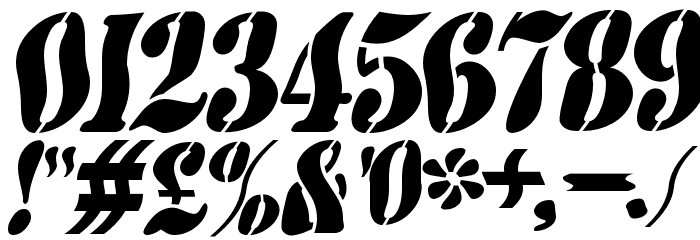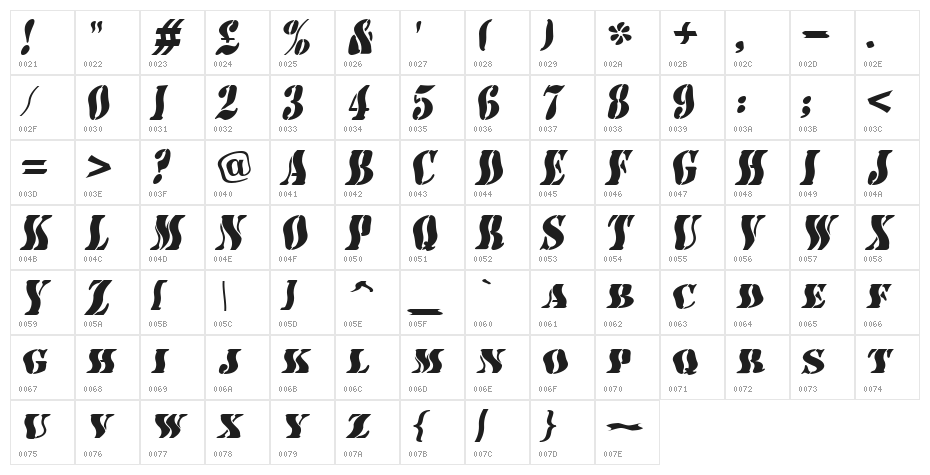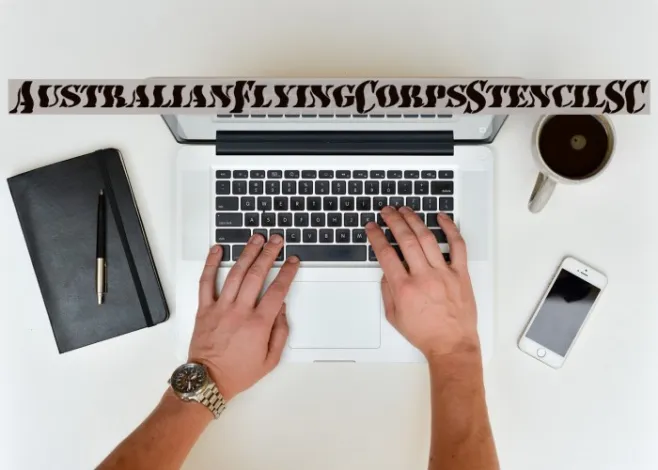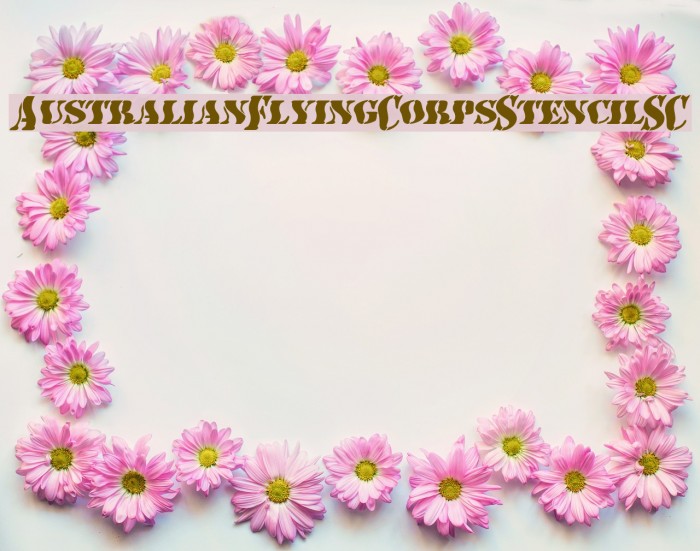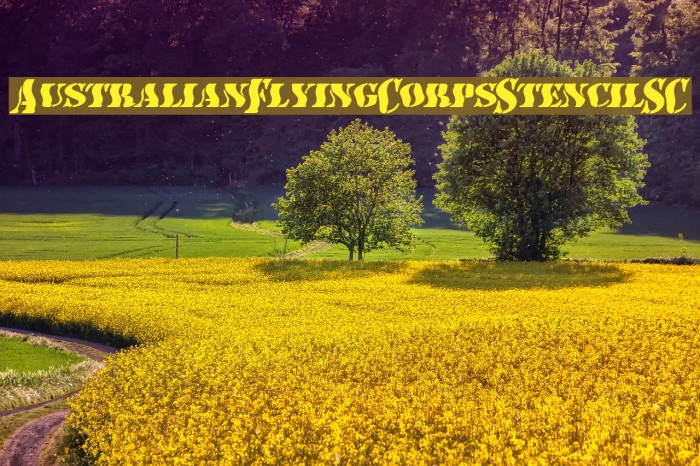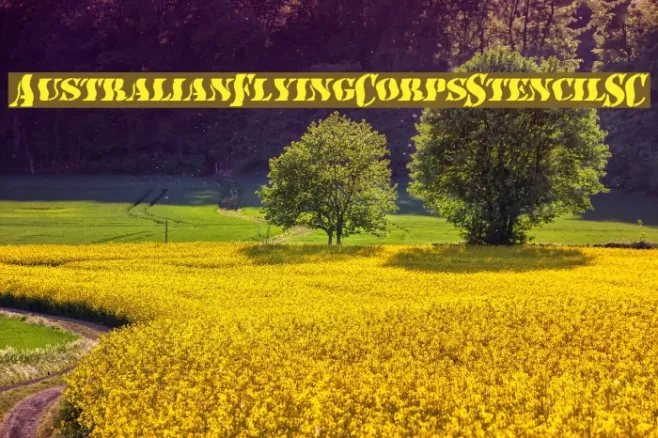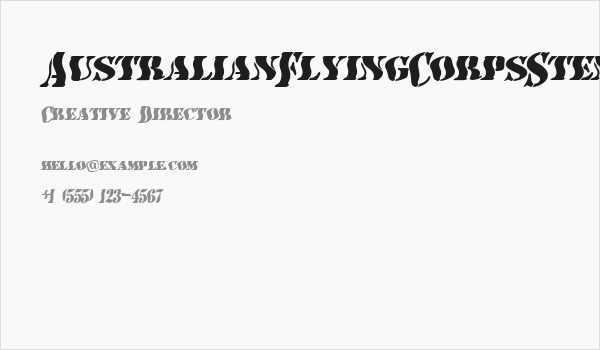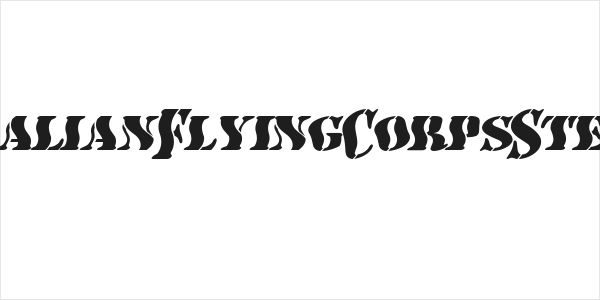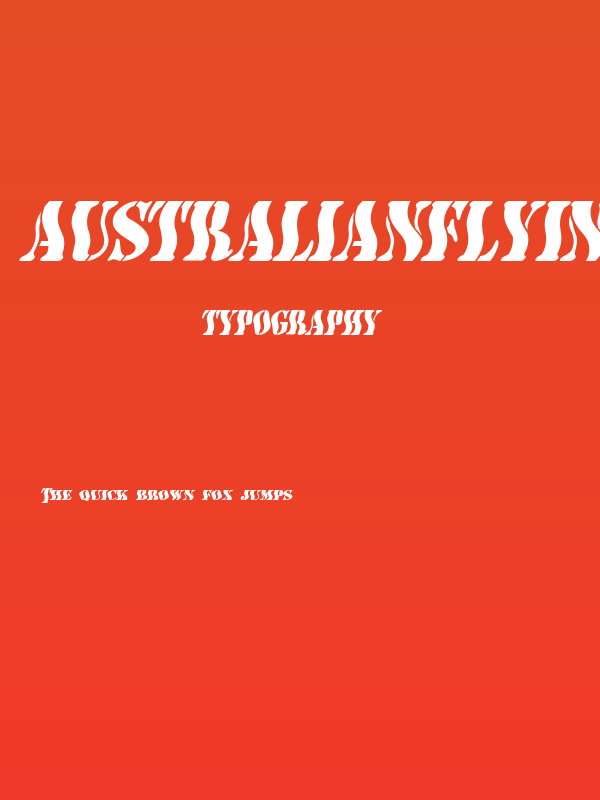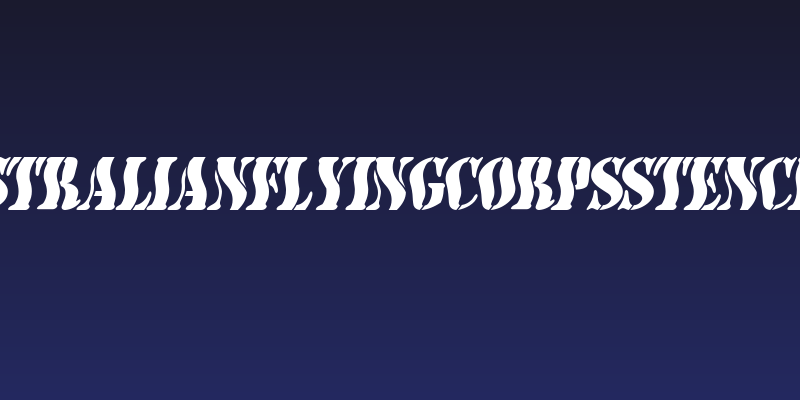
AustralianFlyingCorpsStencilSC Font
AustralianFlyingCorpsStencilSC Description
This font features a bold, stencil-like design with dramatic cutouts and high contrast between thick and thin strokes. The characters are robust and impactful, with a military-inspired aesthetic that evokes a sense of strength and authority. The uppercase letters are particularly striking, with sharp angles and a distinctive style that makes them stand out. The numbers and special characters maintain this bold, stencil appearance, ensuring consistency across all elements. This font is ideal for projects that require a strong visual impact and a sense of ruggedness.
| Proposed Projects | Ideal for military-themed designs, posters, signage, and branding that requires a strong, authoritative presence. |